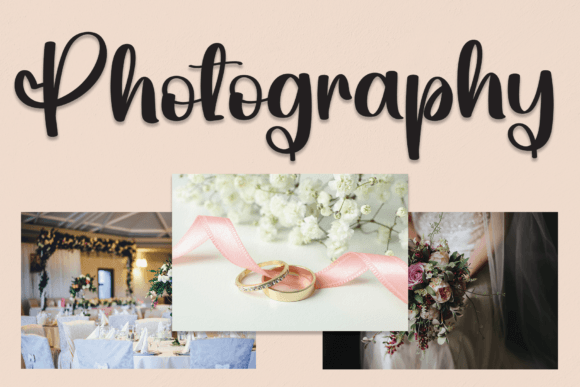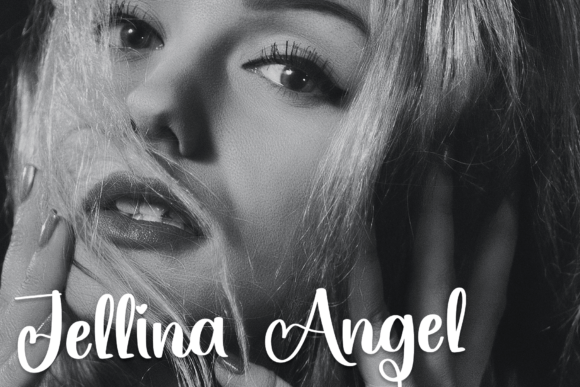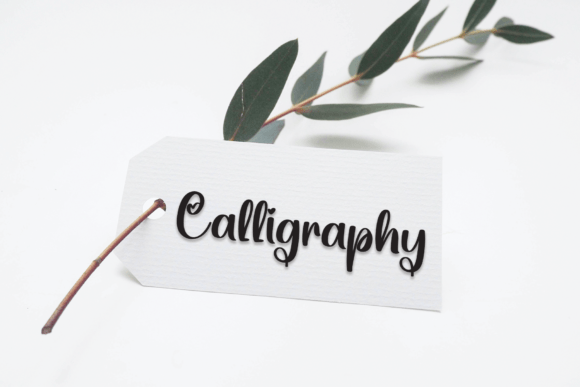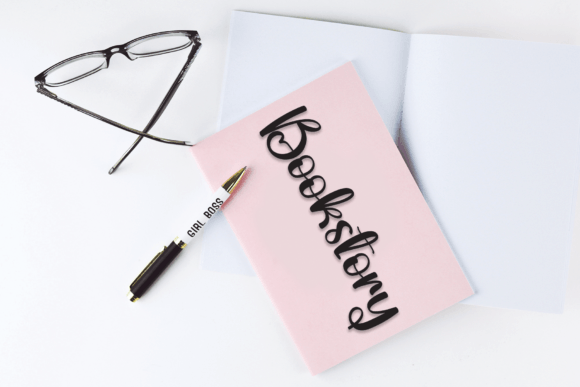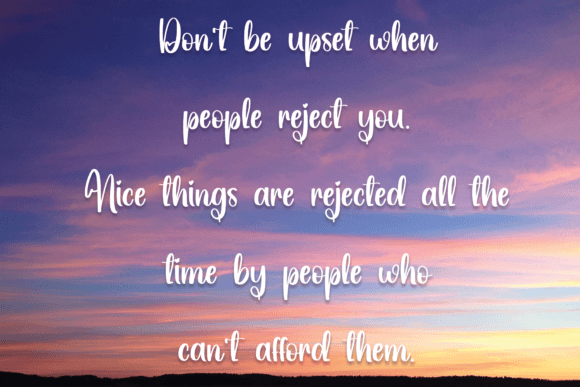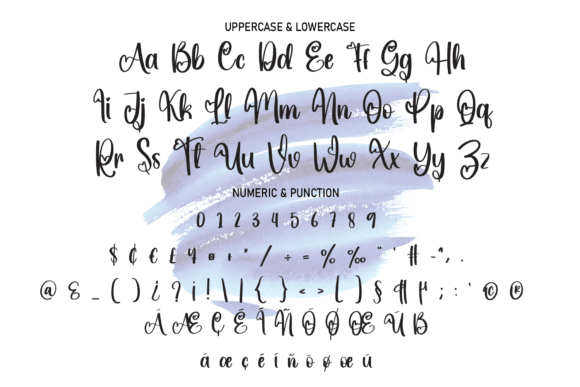
Introducing Allow Font: Unleash Your Creativity with this Bold and Casual Script Font
Are you tired of using the same old fonts in your designs? Look no further! Allow Font is here to shake things up with its bold, casual script style that’s perfect for a wide range of creative projects. In this article, we’ll dive into the world of Allow Font and explore its unique features, uses, and benefits for designers and crafters.
The Unique Style of Allow Font
Allow Font is a bold, casual script font that boasts a natural and unique style. Its effortless charm makes it incredibly fitting for a large pool of designs, from modern and trendy to vintage and rustic. The font’s distinctive character is perfect for adding a personal touch to your projects, setting them apart from the rest.
One of the standout features of Allow Font is its versatility. Its natural, handwritten feel makes it suitable for a wide range of applications, including:
The Only Limit is Your Imagination!
The beauty of Allow Font lies in its ability to inspire creativity. With its unique style and versatility, the only limit to what you can create is your imagination! Whether you’re a professional designer or a crafty DIY enthusiast, Allow Font is the perfect tool to bring your ideas to life.
Imagine using Allow Font to:
- Create eye-catching headlines and titles
- Add a personal touch to your social media posts
- Design beautiful wedding invitations and stationery
- Develop a cohesive brand identity
- Craft unique and personalized gifts
Allow Font offers a range of benefits for designers and crafters, including:
- Easy to read: Despite its bold and casual style, Allow Font is surprisingly easy to read, making it perfect for body text and captions.
- Highly versatile: Allow Font can be used in a wide range of projects, from digital designs to print materials.
- Unique and distinctive: Allow Font’s natural and handwritten feel sets it apart from more traditional fonts.
- Time-saving: With Allow Font, you can create stunning designs in no time, thanks to its effortless and fluid style.
Allow Font is a bold, casual script font that’s perfect for designers and crafters looking to add a personal touch to their projects. With its natural and unique style, versatility, and ease of use, Allow Font is an excellent choice for a wide range of creative applications. So why wait? Unleash your imagination and get creative with Allow Font today!